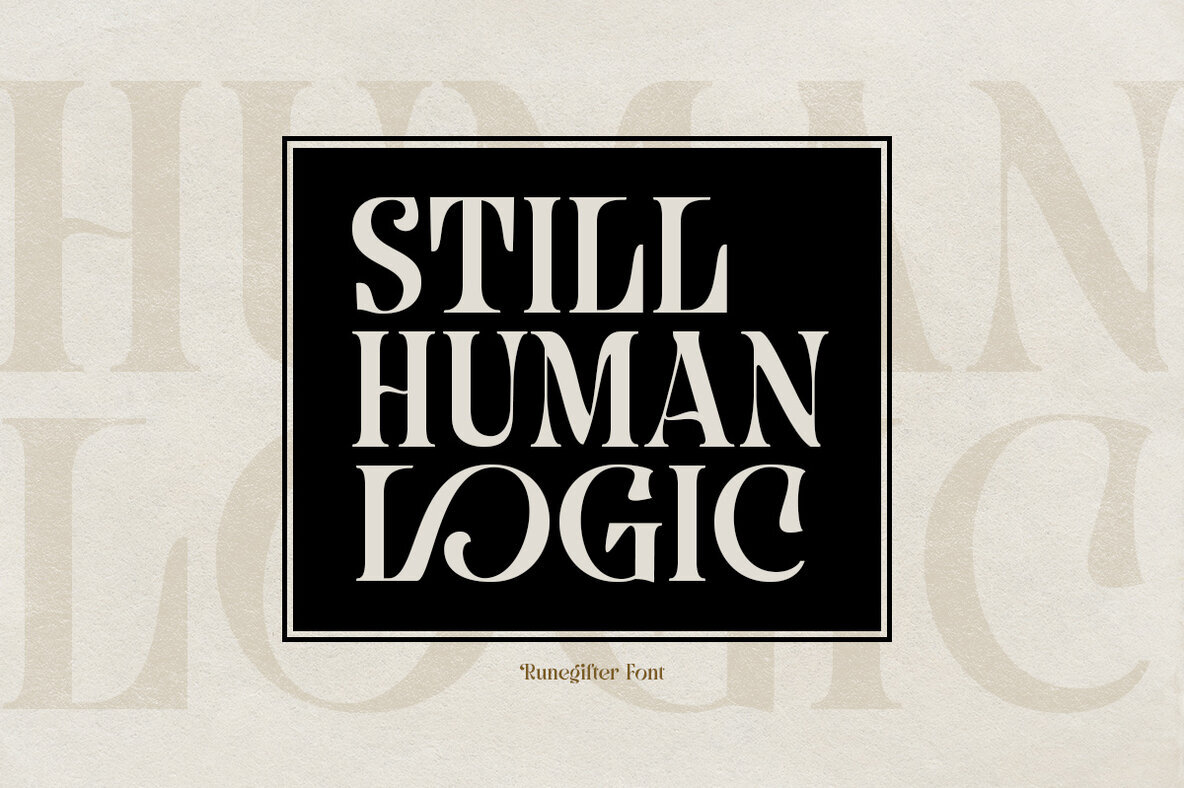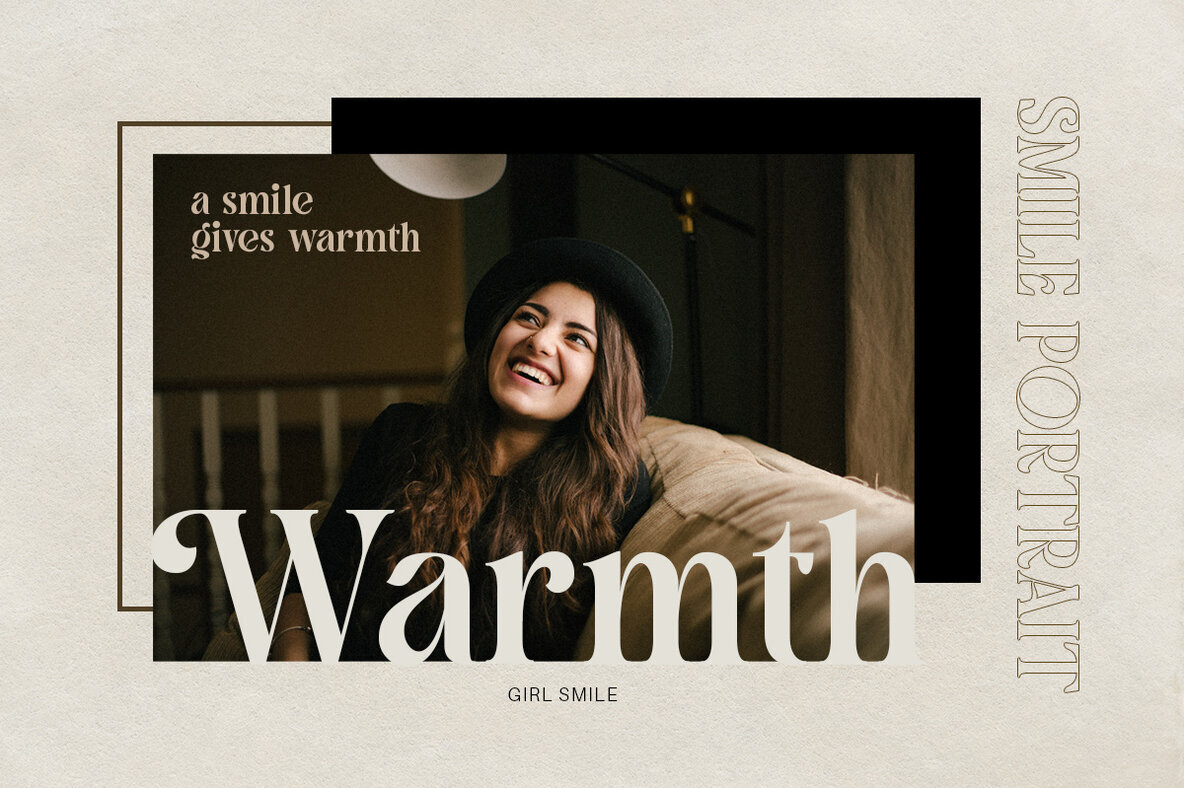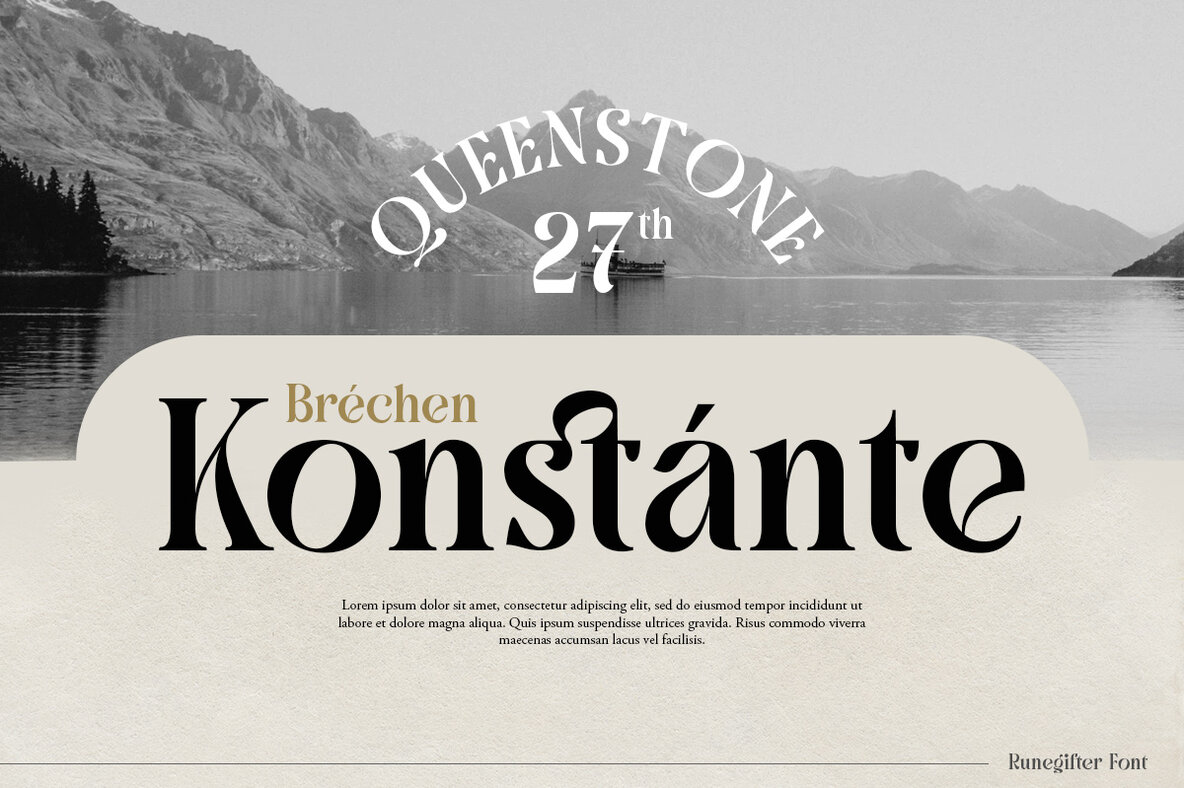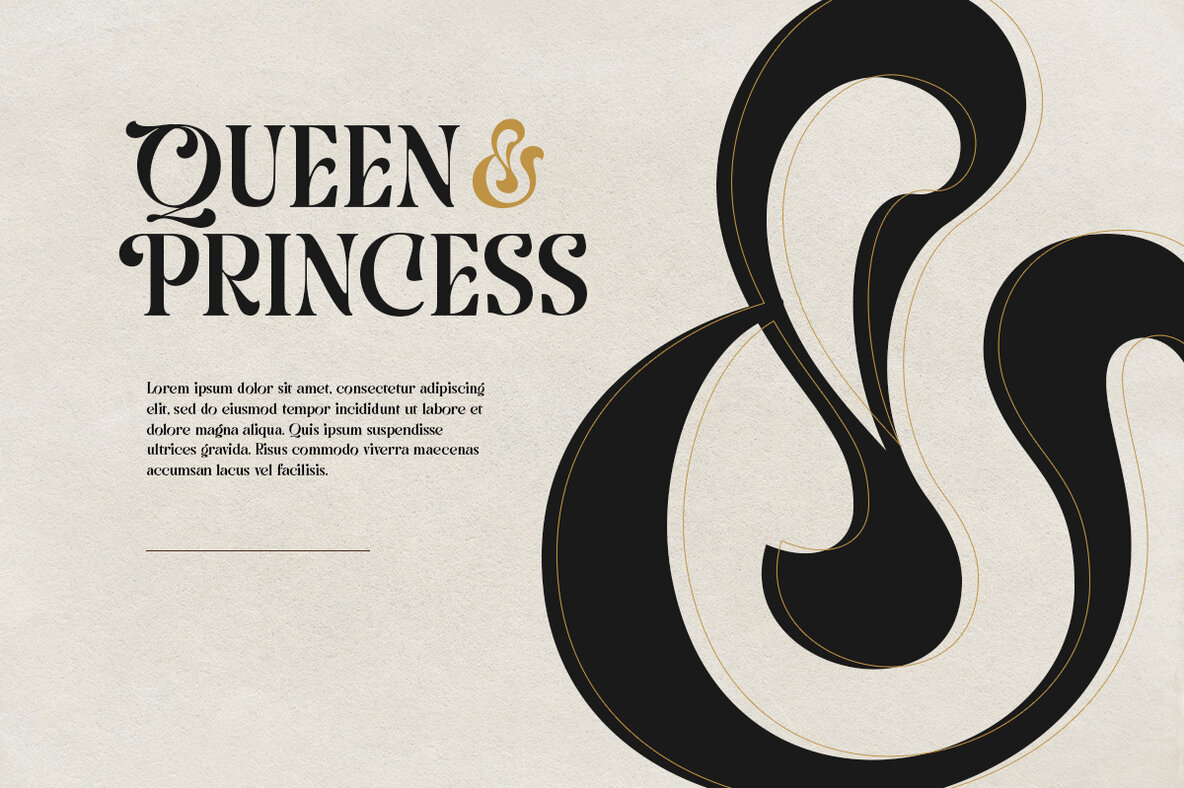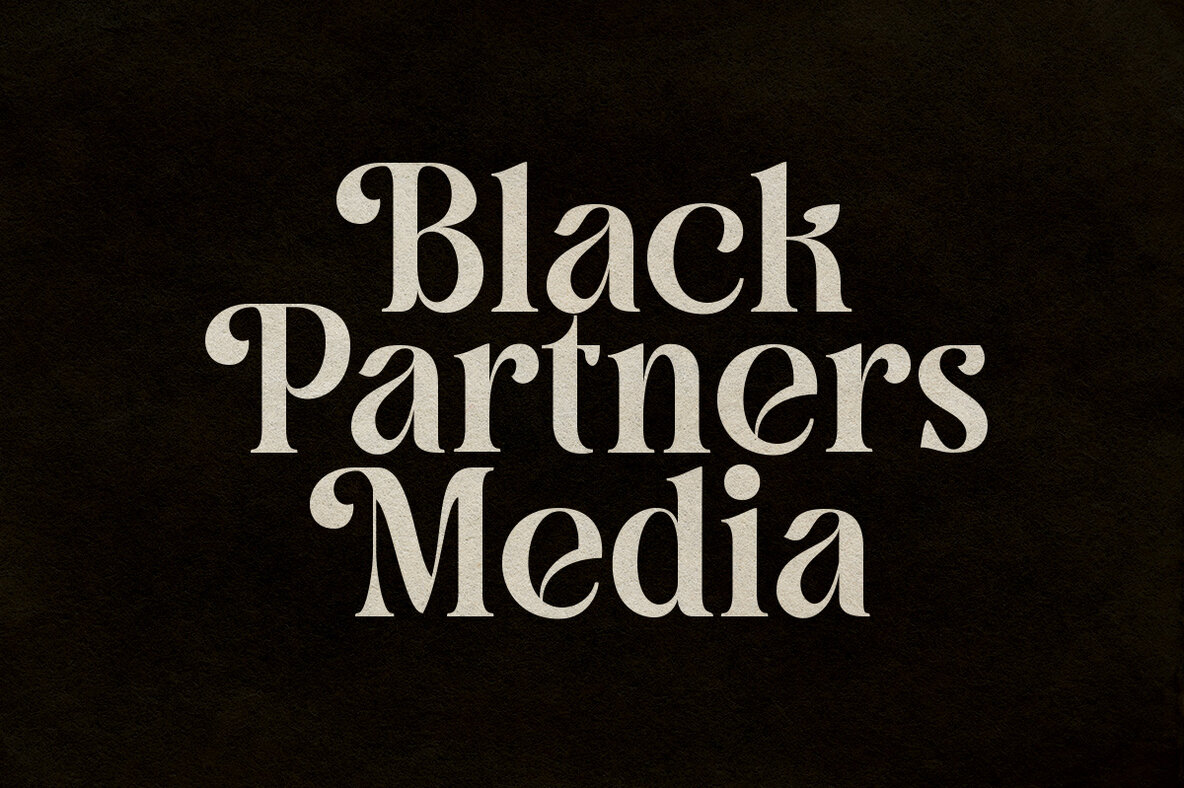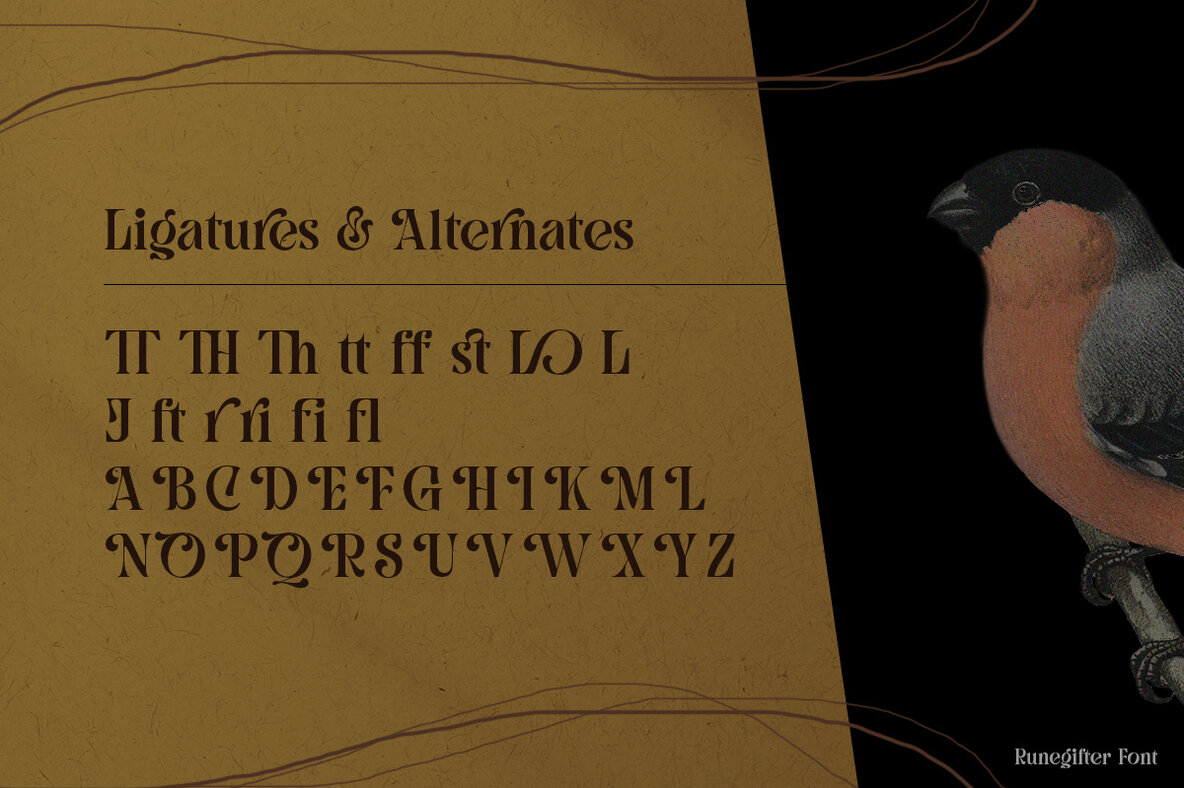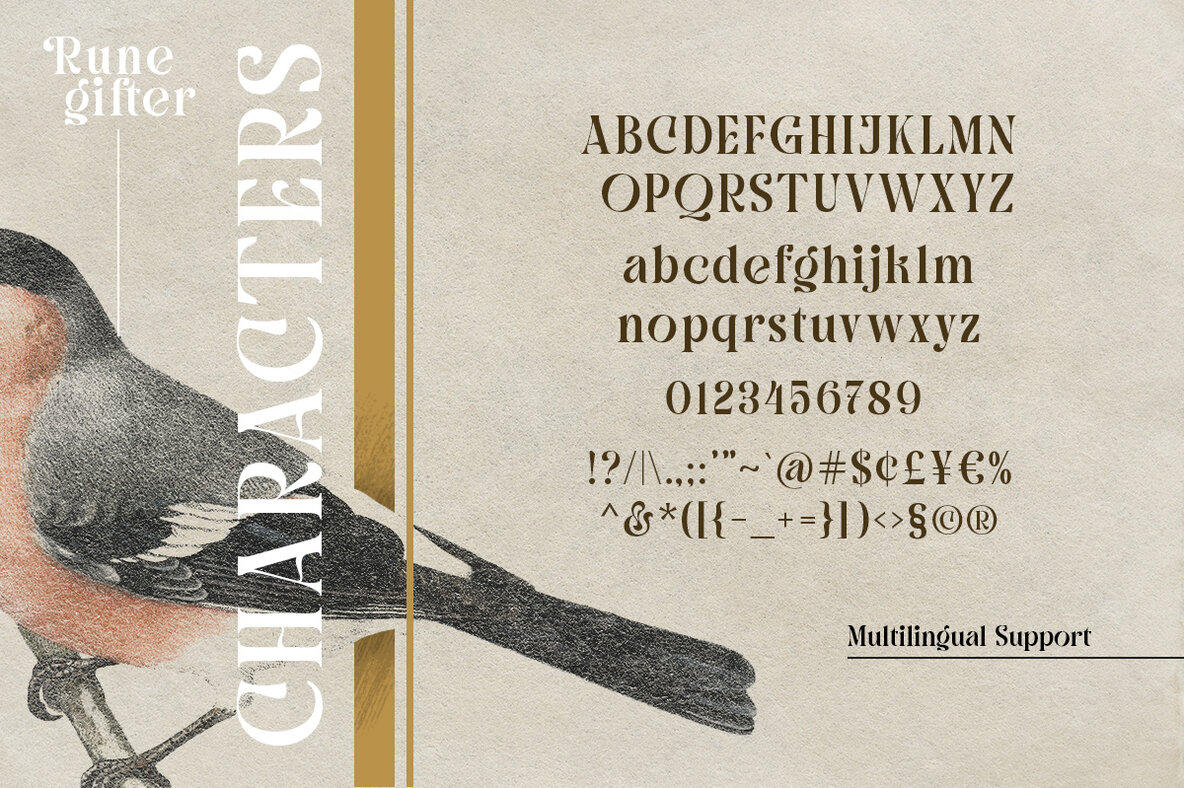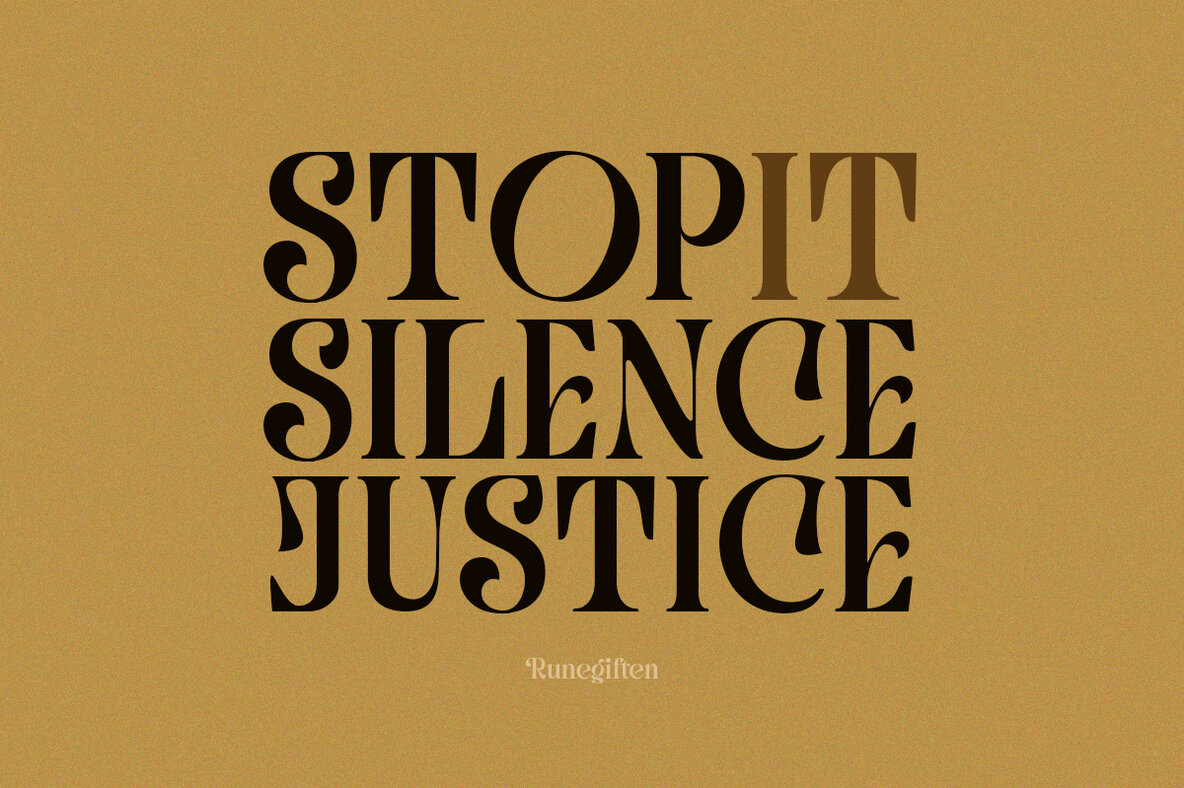
Runegifter Font
Runegifter Regular
Runegifter is a bold, modern display serif font characterized by its stylish and smooth curves. Ideal for fashion branding and editorial design, this font brings a contemporary and cool aesthetic to your projects. Its unique design elements make it a versatile choice, suitable for making bold statements in any visual composition.
With its sleek style, Runegifter enhances the visual appeal of your design work, ensuring your projects stand out. This font's distinct character is a perfect match for designers looking to inject a modern flair into their creative endeavors.